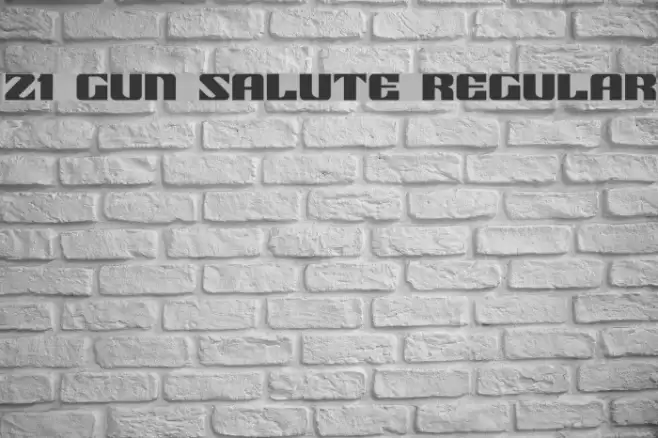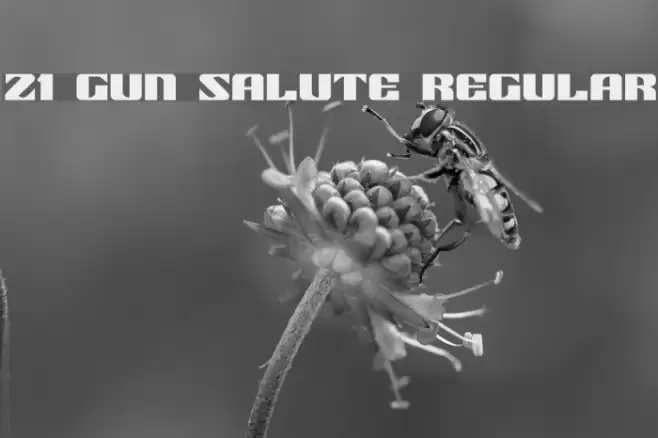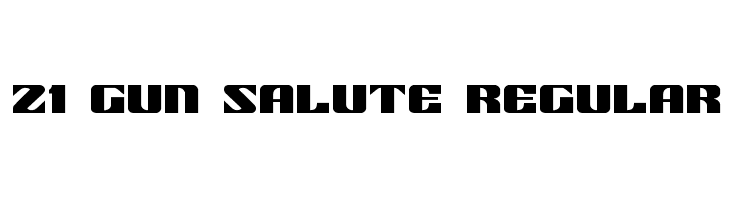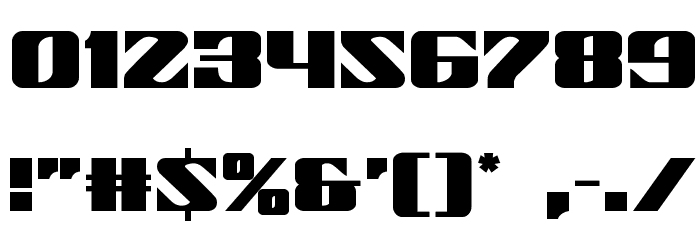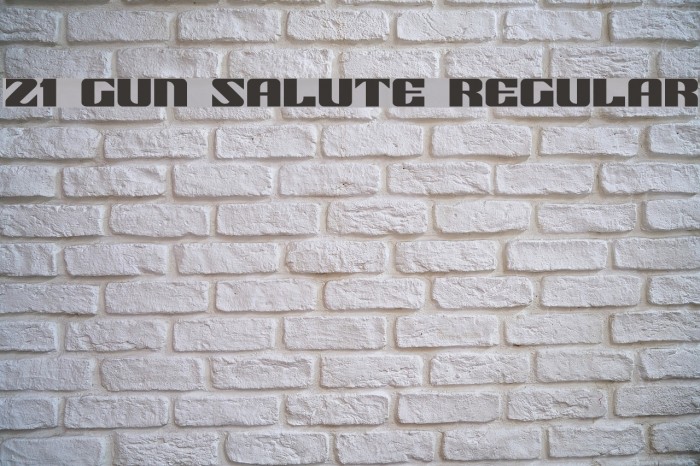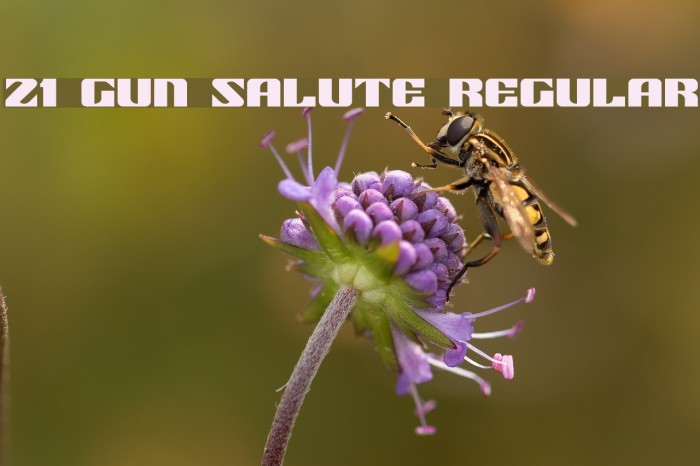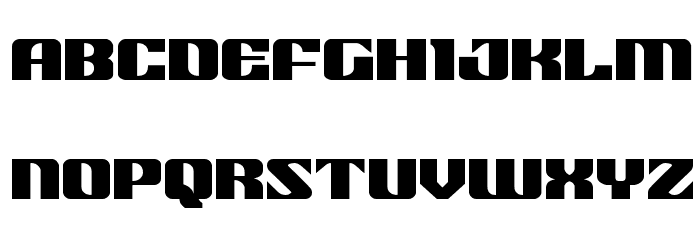
21 Gun Salute Regular Font
21 Gun Salute Regular Description
This font features a bold and impactful design with strong geometric shapes and sharp angles. The uppercase letters are particularly striking, with a blocky, almost military aesthetic that commands attention. The lowercase letters maintain the same boldness, ensuring consistency across different text cases. Numbers and special characters are equally robust, making them stand out in any context. The overall design is reminiscent of stencil or industrial fonts, suitable for creating a strong visual impact.
A bold, geometric font with a military-inspired, stencil-like design from Farsi fonts.
- Proposed Projects: Ideal for use in posters, banners, and branding projects that require a strong, authoritative presence. Suitable for military-themed designs, sports team logos, or any project needing a bold statement.
- Overall Style: Modern, Industrial